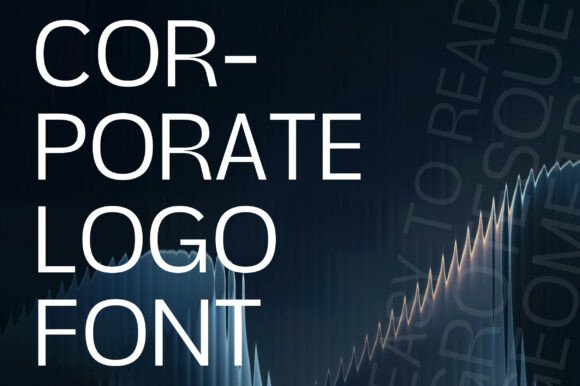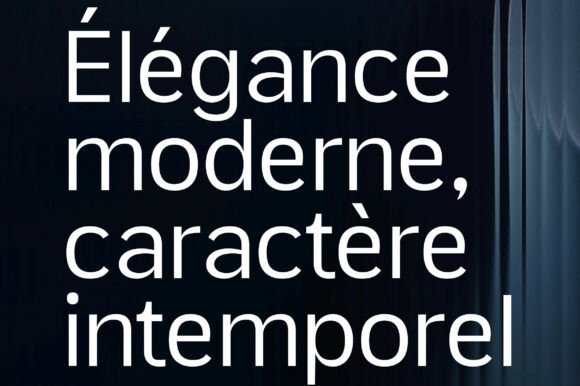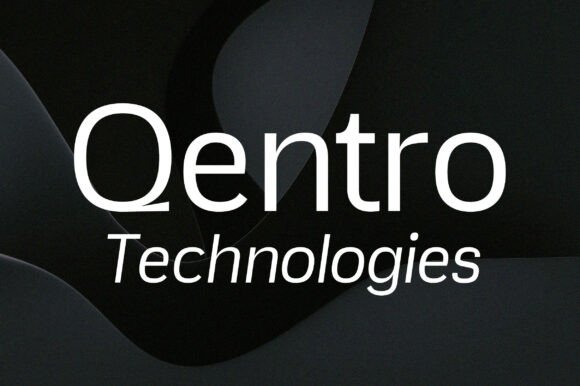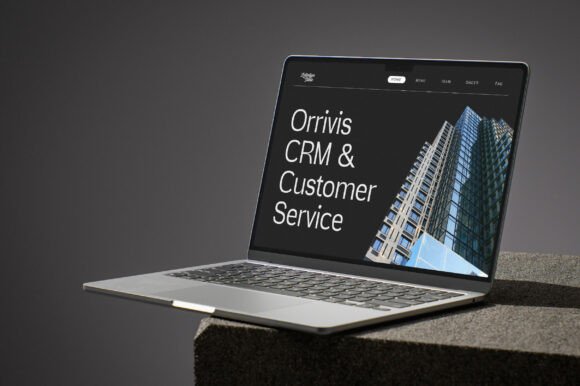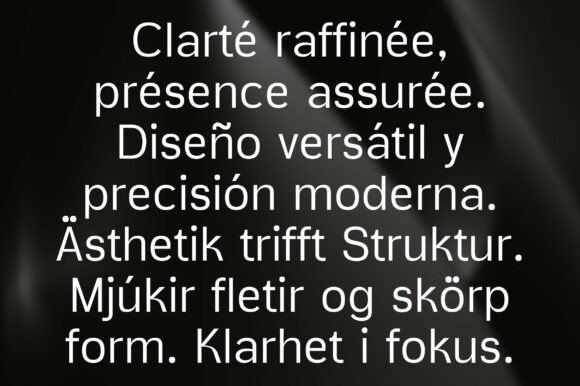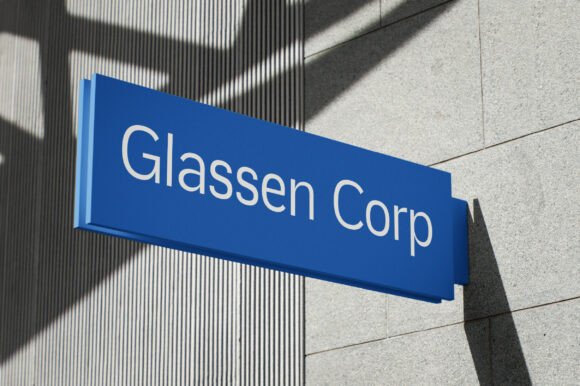
I still remember the frustration of scrolling through font libraries, searching for the perfect typeface for a client’s tech startup project. The brief was simple: create a modern, professional brand identity that exuded innovation and sophistication. But, as designers often find themselves, the quest for the ideal font can be daunting. That’s when I stumbled upon Glassedge Regular Font, a game-changing grotesque sans-serif font that transformed my design process.
First Impressions: A Modern Grotesque
Glassedge is a modern grotesque sans-serif font designed specifically for bold, professional branding. Its fluid, glass-like aesthetics, inspired by next-generation mobile operating systems, bring sharp clarity and futuristic precision to every design. With clean geometry and refined curves, Glassedge is perfect for corporate logos, tech interfaces, software branding, and minimalist visual systems that demand both strength and sophistication.
- ✨ Clean and modern design: Glassedge boasts a sleek, futuristic aesthetic that’s perfect for tech-savvy brands.
- ✅ Versatility: The font family includes two essential styles: Regular and Oblique, providing flexibility for various design applications.
- 💡 Excellent legibility: Glassedge’s clear geometry and refined curves ensure optimal readability, even at small font sizes.
While Glassedge is an exceptional font, there are a few minor considerations to keep in mind:
- 🤔 Limited character set: As a modern grotesque font, Glassedge might not be the best choice for designs requiring extensive character sets or non-ASCII characters.
- ⚠️ Overuse of bold weights: Be mindful of overusing the bold weights, as it may lead to visual overload and detract from the overall design.
Glassedge’s design was inspired by the sleek, futuristic aesthetics of next-generation mobile operating systems. The font’s creator aimed to capture the essence of modern technology, combining clean geometry with refined curves to create a truly unique typeface. This blend of form and function makes Glassedge an excellent choice for designers seeking a bold, professional font for their projects.
| Font Name | Glassedge Regular Font |
| What is Glassedge Regular Font best suited for? | Glassedge Regular Font is ideal for corporate logos, tech interfaces, software branding, and minimalist visual systems that demand both strength and sophistication. |
| Is Glassedge a versatile font? | Yes, Glassedge comes in two essential styles: Regular and Oblique, providing flexibility for various design applications. |
| Can I use Glassedge for digital and print designs? | Yes, Glassedge Regular Font is suitable for both digital and print designs, offering excellent legibility and a modern aesthetic. |